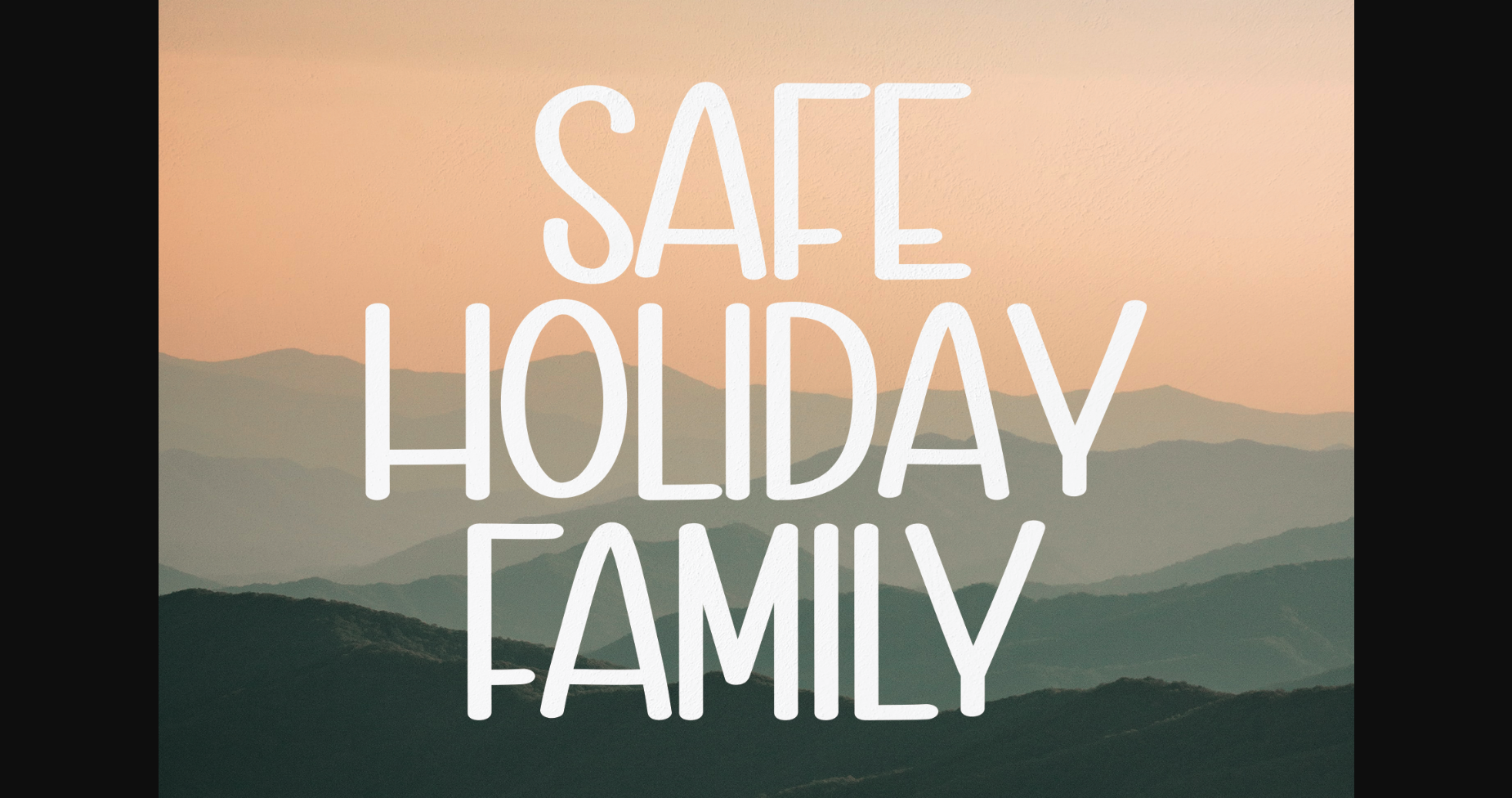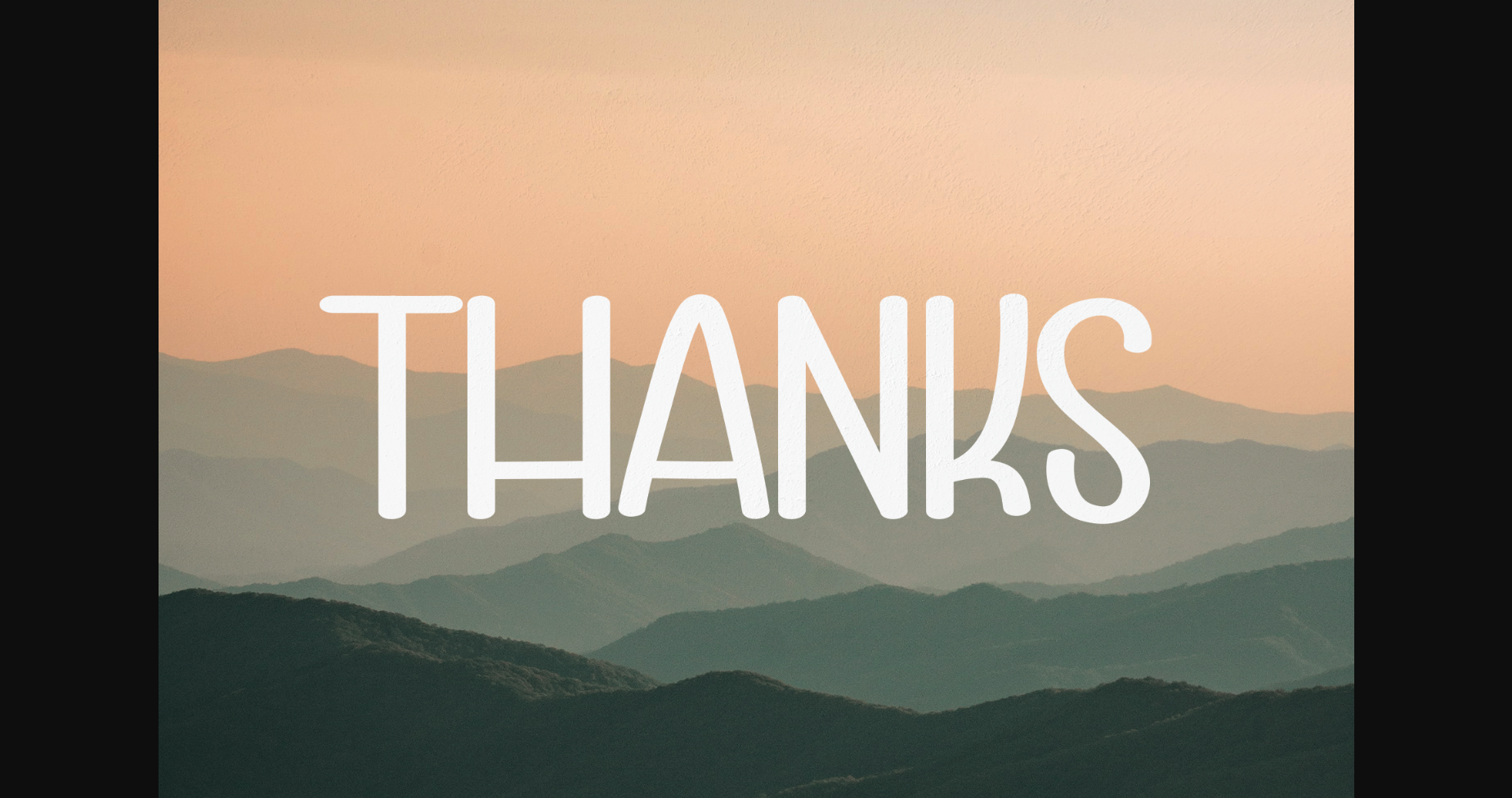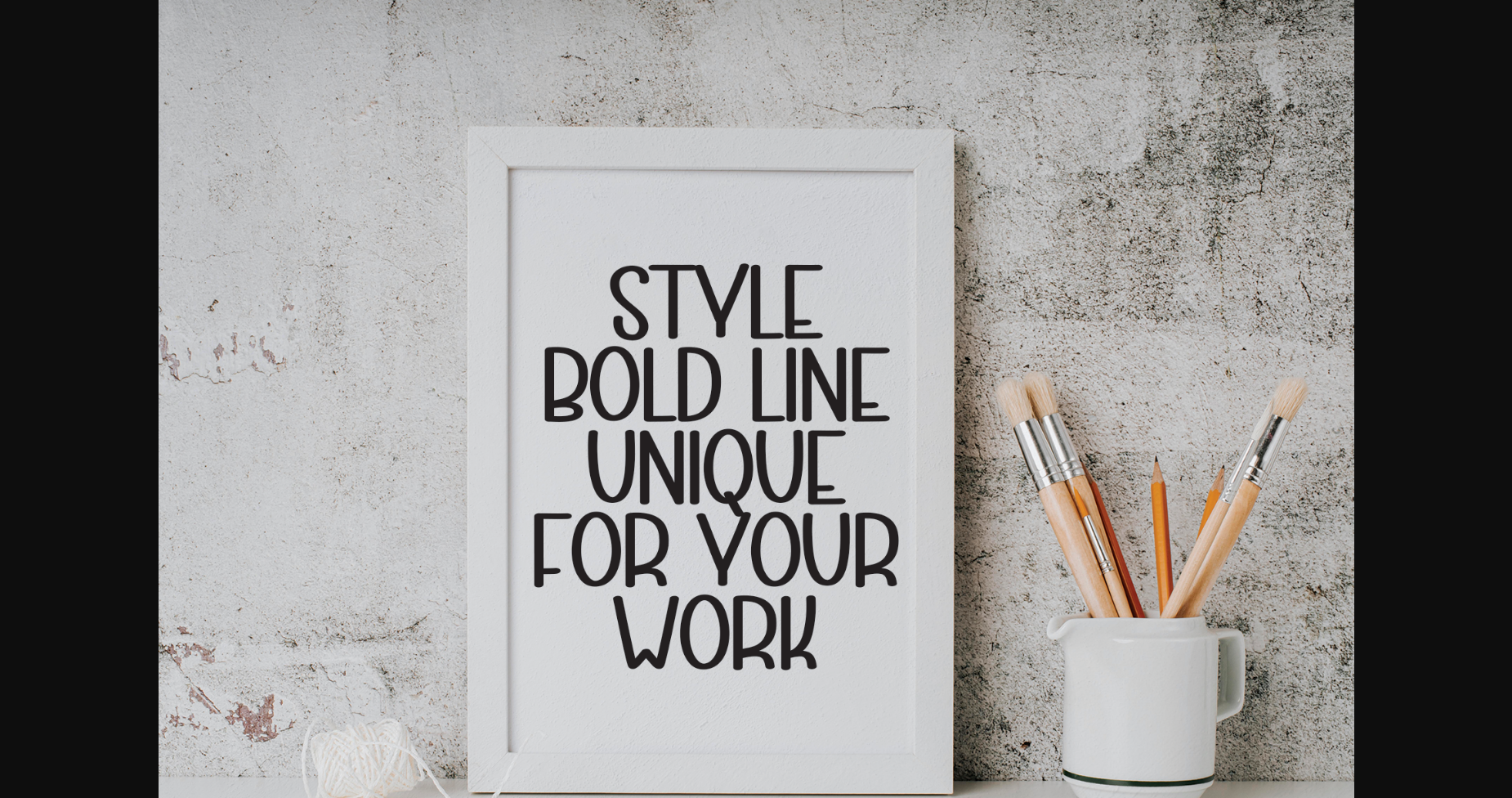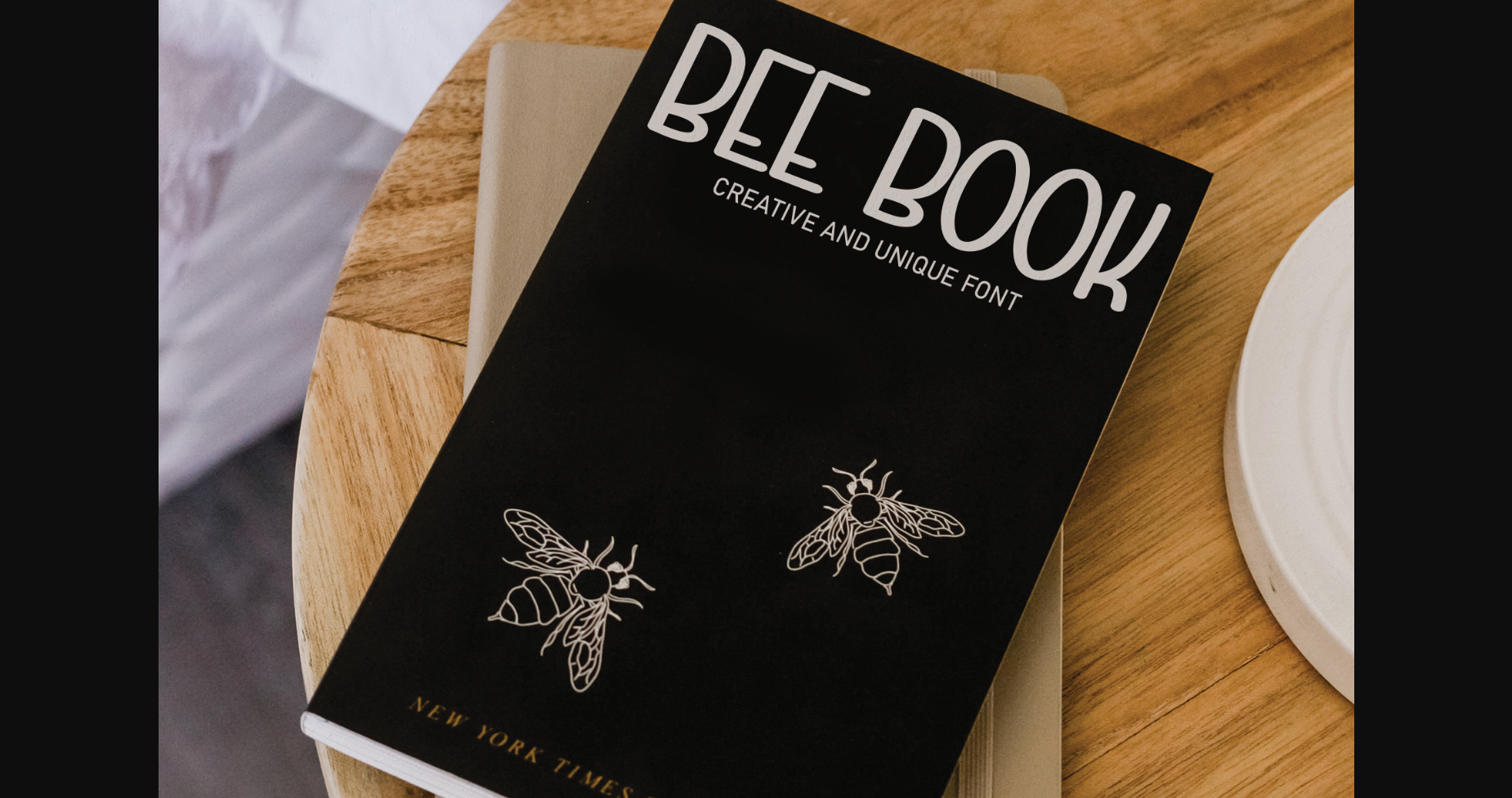
Safe Holiday Family Font
About Safe Holiday Family Font
Safe Holiday Family is a modern and simple sans serif font. Its latest style letters are perfect for wall displays, wedding invitations, social media post logos, advertisements, product packaging, product designs, labels, photography, watermarks, invitations, stationery, and any project that requires a handwritten touch.